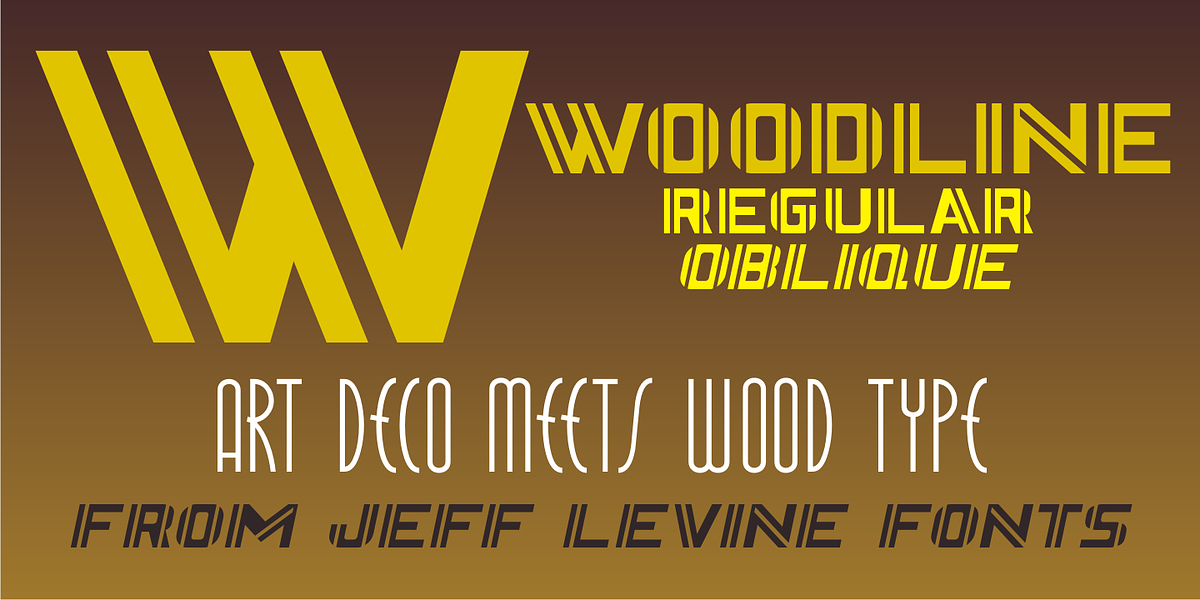
Wood Lined JNL
Most folks might picture wood type lettering as the fancy styles of the 1880s which so perfectly evoked images of the Old West.
Occasionally there is an exception to that rule, as an online image of some vintage wood letters with an Art Deco influence inspired a revival as a digital type face.
Wood Lined JNL features a bold alphabet with an engraved line throughout the characters, and is available in both regular and oblique versions.